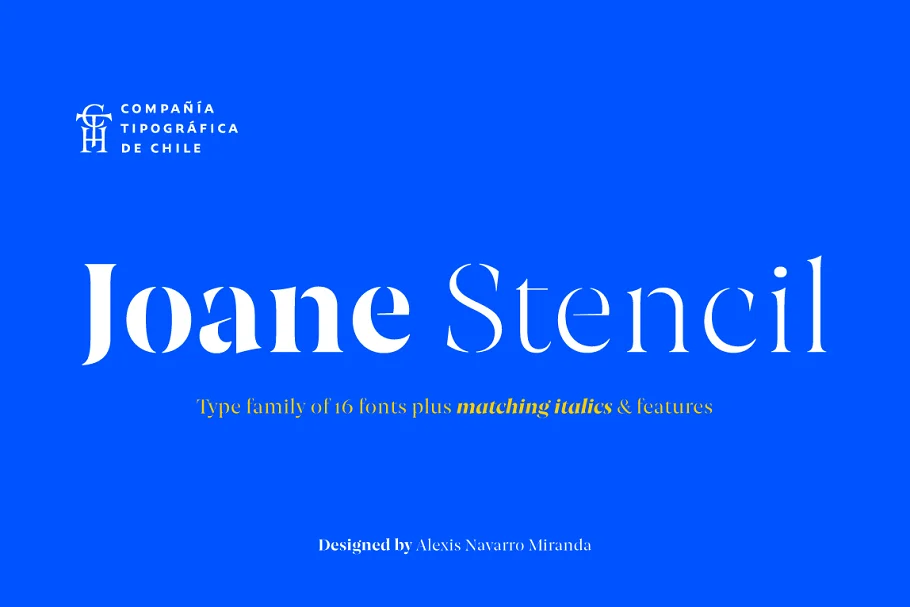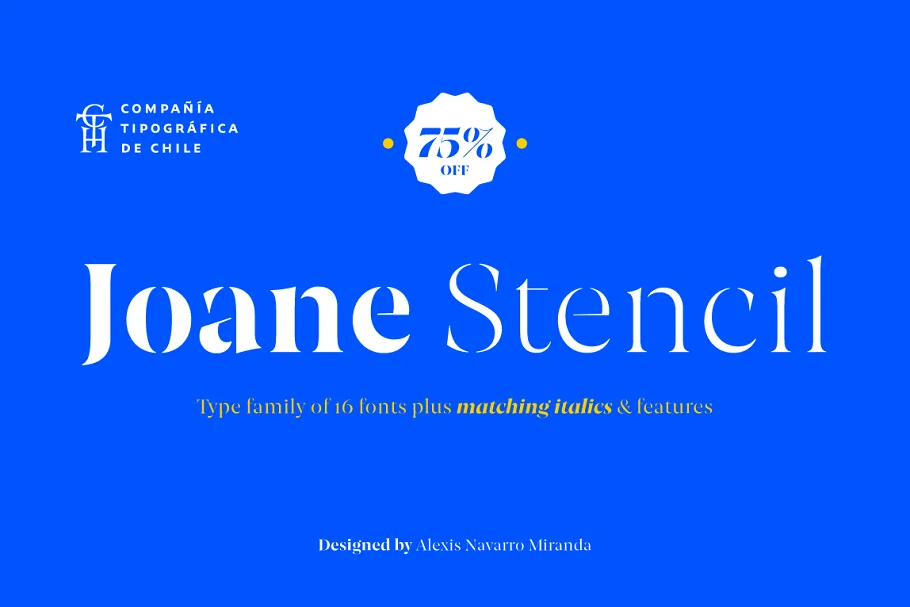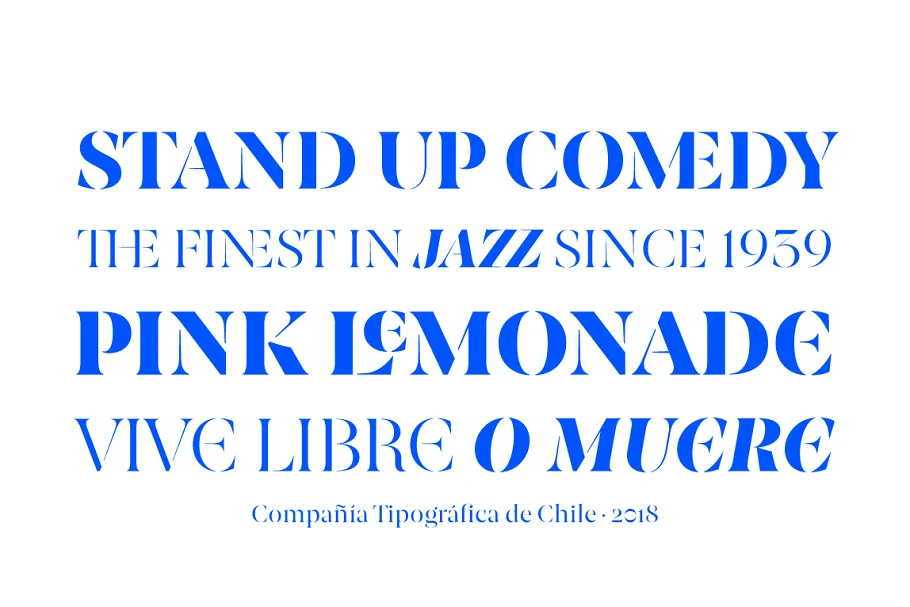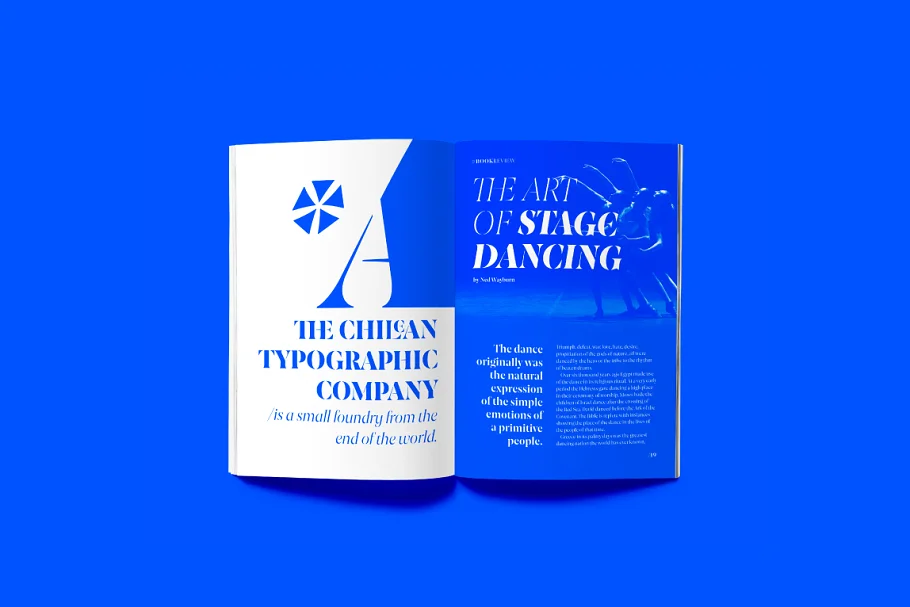
About the Joane Stencil Font
Joane Stencil™ is Joane’s fearless sequel. Mixes the elegancy of French did ones, calligraphic endings, glyphic serifs and the split of the Stencil is treated very carefully. Thus its features convey a warm unique style.
Moreover, it has powerful OpenType features for each style, including stylistic sets, extended language support, beautiful ligatures, contextual alternates, lining figures, old-style figures, fractions, and many more.
Joane Stencil is perfectly suited for magazines headlines, branding, advertising, labels, web, and packaging.